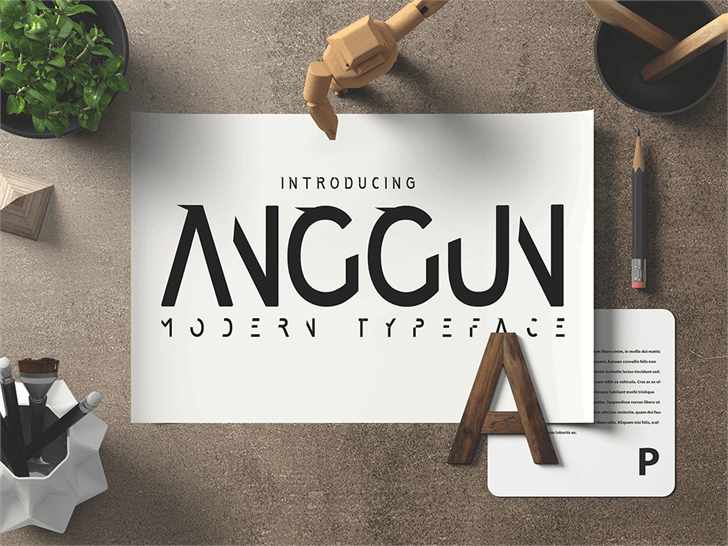
Free Anggun Sans Font
Take a look at this impressive free anggun sans font. Go give some love to Font Space for creating this top-notch font. Easily amaze your audience with this fancy font and make your graphic designs pop up from the crowd.